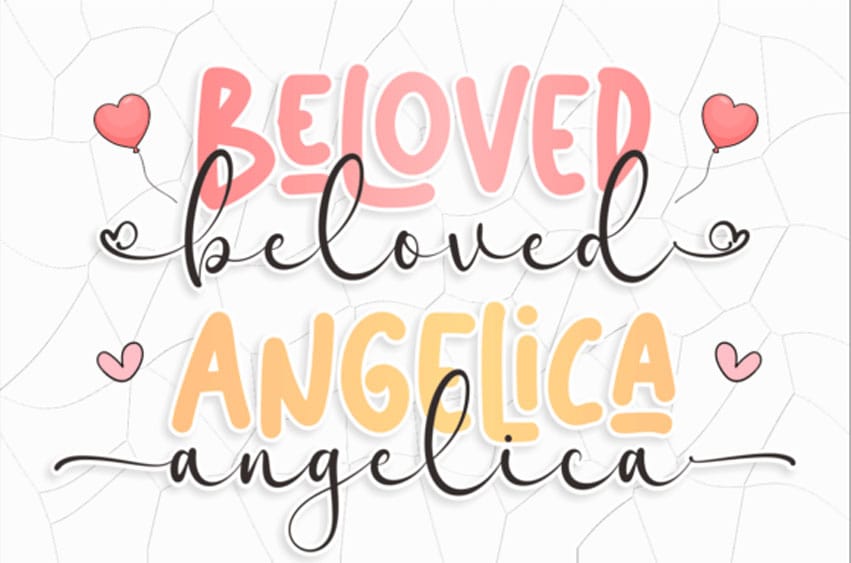
Beloved Angelica Font is a lovely, stylish, and greatly detailed duo font (script and sans serif). Very suitable for your Valentine’s theme design, this font will guarantee a romantic touch to each of your creations!